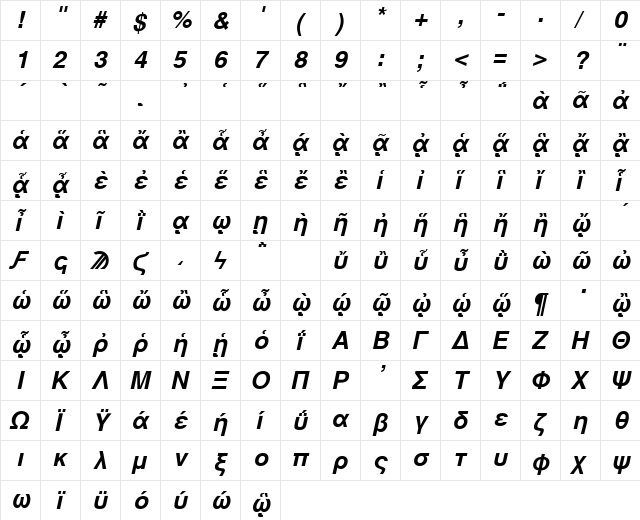
GreekSansAncientSSK BoldItalic
Design Context for GreekSansAncientSSK Typeface
GreekSansAncientSSK is a composed and adaptable typeface that performs quietly and consistently across a wide range of design contexts. The slanted form adds forward momentum and visual energy. The heavy weight commands attention and anchors typographic hierarchies.
Pro Tip: Use GreekSansAncientSSK for emphasis, pull quotes, and subheadings where its slanted energy can add rhythm to the layout.